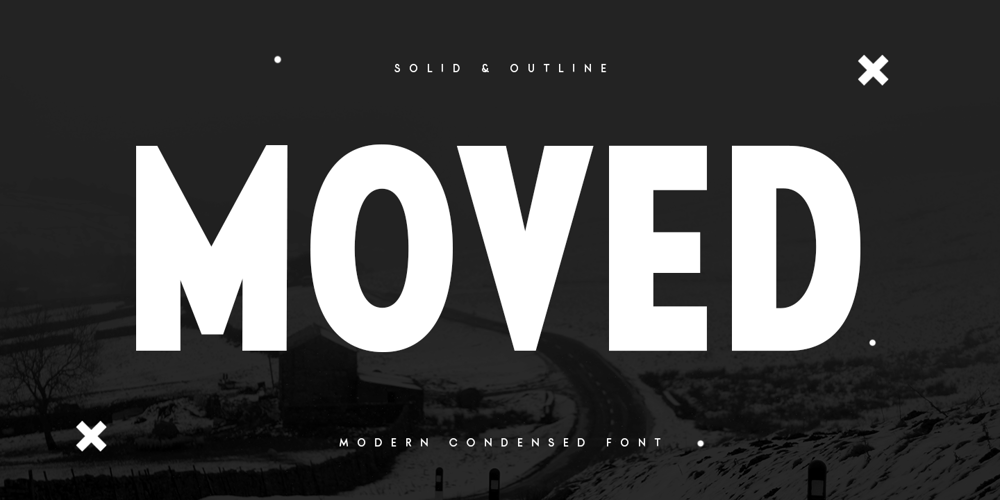
Moved Font Family was designed by Zamroni Hamzah and published by Sensatype Studio. Moved contains 2 styles and family package options. Moved is a Modern Sport font that created special for Branding, Title and more stand out typography needs, with extra alternative styles that make your design more memorable. It’s so perfect to add your style and headline overview for sport, technology, actions, and fighting theme. And specially for this font, we crafted for bold action style and modern feels so enjoy to create any project that will show your main idea out.Moved Modern Sport font ready with: 2 Font variation characters prepared to get creative alternatives 4 files format already of each style Preview as a inspirations that you can do with Moved font Ready with All Uppercase characters Wish you enjoy our font. ๐